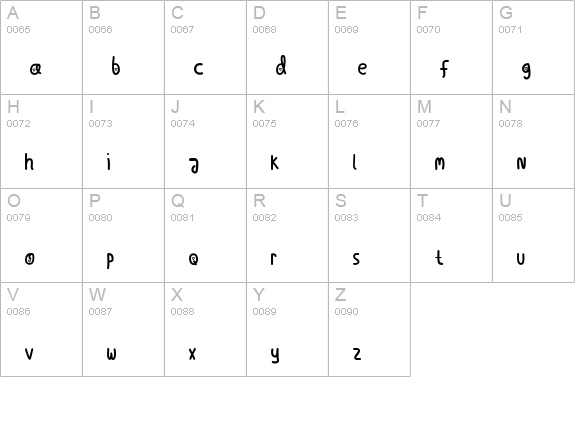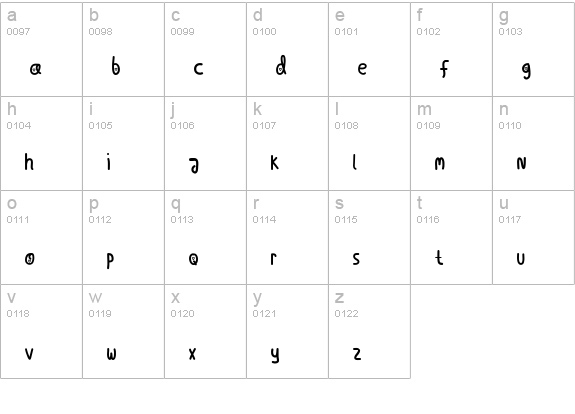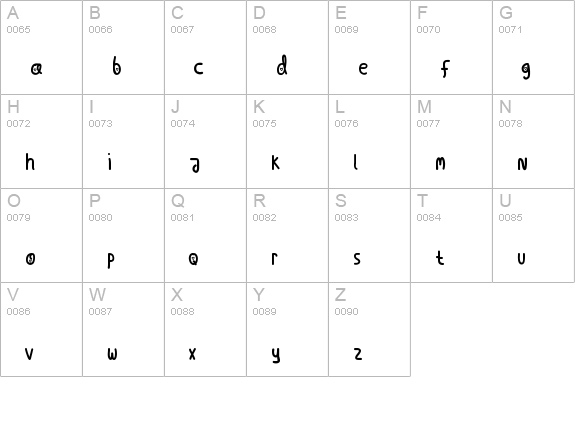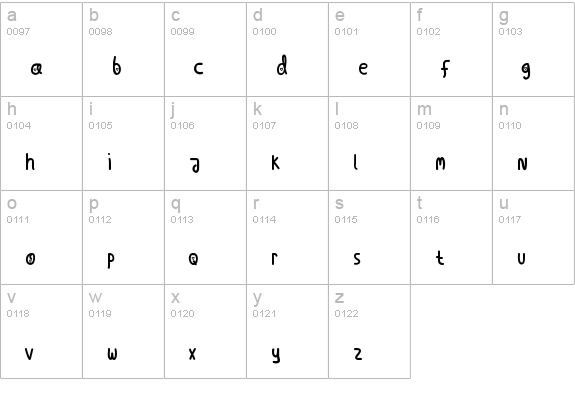
Love Me Tender font is a mesmerizing typeface that captures the essence of romance and elegance. With its delicate curves and graceful strokes, this font exudes a soft and tender vibe, perfect for expressing affection and warmth in any design project. What sets Love Me Tender font apart is not just its stunning aesthetics, but also its accessibility. This font is freely available to download at FontsMarket.com, ensuring that anyone can bring a touch of love and tenderness to their creative endeavors without any cost. Whether you are designing wedding invitations, crafting heartfelt love notes, or creating beautiful typographic art, Love Me Tender font will effortlessly elevate your work to new heights. Its versatility allows it to be used in a variety of contexts, from romantic and sentimental to whimsical and playful. The smooth and flowing letterforms of Love Me Tender font create a harmonious balance between elegance and readability, making it suitable for both digital and print applications. Its generous spacing and well-defined characters ensure legibility even at smaller sizes, while its intricate details shine through when used in larger headlines or decorative elements. Love Me Tender font is a true testament to the power of love in design. It captures the delicate nuances of emotions, evoking feelings of affection and tenderness. Its timeless beauty and timeless appeal make it a must-have for designers, typographers, and anyone who wants to add a touch of romance and charm to their projects. Download Love Me Tender font for free at FontsMarket.com and unleash the power of love in your designs. Let this enchanting typeface captivate hearts and bring warmth to every word.